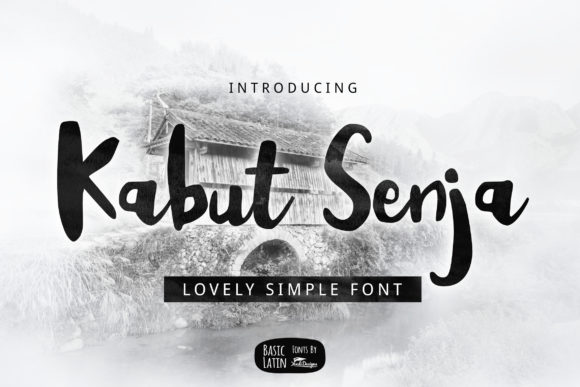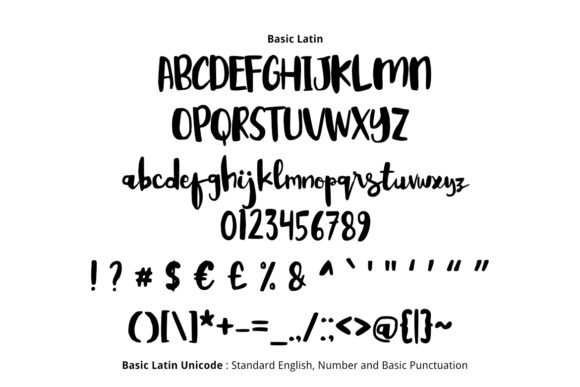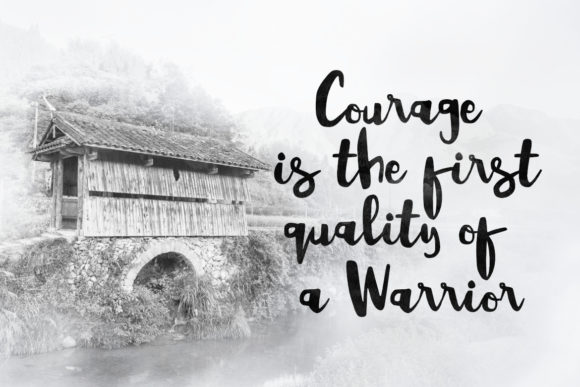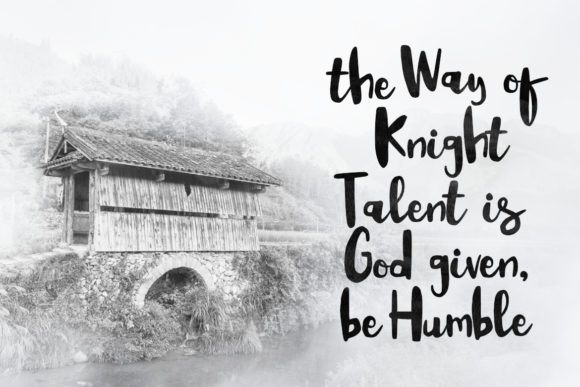
HomeScript FontsKabut Senja Font Script Fonts Kabut Senja Font FacebookXPinterestWhatsApp Kabut Senja Font Poster 2 Kabut Senja Font Poster 3 Kabut Senja Font Poster 4 About Kabut Senja Font Kabut Senja is a simple script with a casual feel. Use it to turn any design project into a true standout! DOWNLOAD ON CREATIVE FABRICAThis font is sold and delivered by Creative Fabrica. Font Canyon may earn a commission if you buy through this link. People also explored The President Font Viva Maria Fisha Script Font My Father Font Hometown Font Rosalen Font Toronto Font Calderisa Font Lonsdale 286 0 TagsKabut Senja Font Previous articleGuilty FontNext articleResign Font LEAVE A REPLY Cancel reply Comment: Please enter your comment! Name:* Please enter your name here Email:* You have entered an incorrect email address! Please enter your email address here Website: Save my name, email, and website in this browser for the next time I comment. Personal Use Free Barokah Personal Use Free Read more about this font Borg Personal Use Free Read more about this font Valentines Day Personal Use Free Read more about this font Fibon Personal Use Free Read more about this font BLOG Free vs Paid Fonts: Why Investing in Premium Fonts Is Worth It Free vs Paid Fonts: Why Premium Fonts Are Worth It in 2025 The debate of free vs paid fonts continues in the design world. While... Exploring Font Trends Top 10 Handwritten Fonts That Elevate Your Designs Best Fonts for T-Shirt Design – Top 2025 Picks